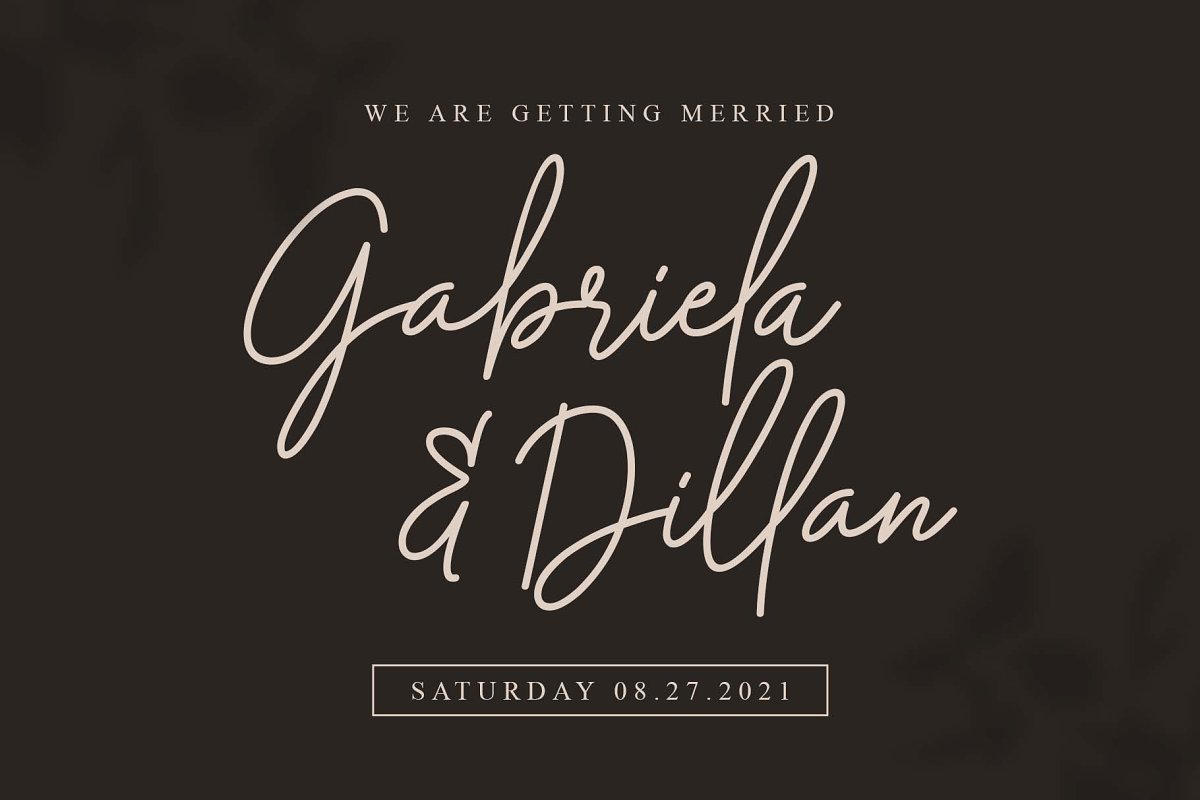
About the Midnight Signature Font
Midnight Signature is a handwritten script with a natural & stylish flow, It’s the perfect font for adding an authentic touch to any design project, This font is perfect for branding designs, logo designs, wedding designs, social media posts, packaging designs, posters, quotes, watermarks, catalogues and any others, What includes:Midnight Signature (OTF/TTFWOFF)PUA EncodedMultilingual SupportWork on PC & MacSimple Installation